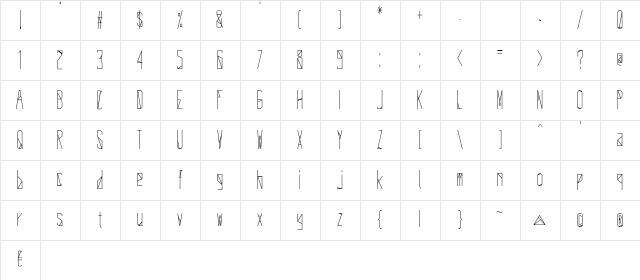
Delta Universe is a composed and adaptable typeface that performs quietly and consistently across a wide range of design contexts.
Pro Tip: Use Delta Universe in both headline and body roles to test its range before committing to a single application.